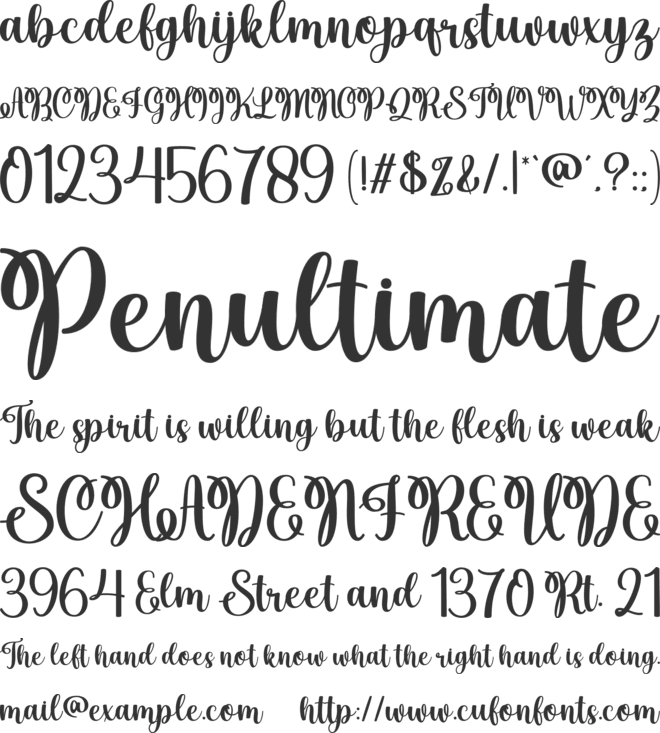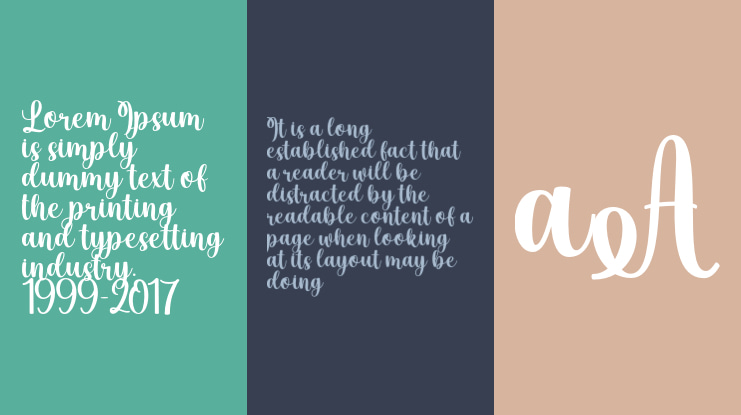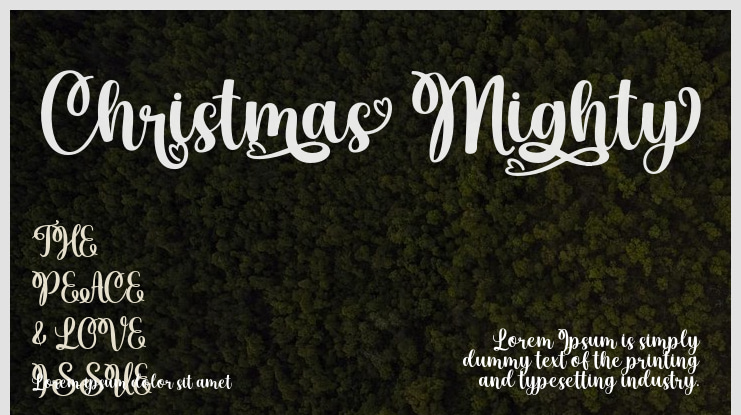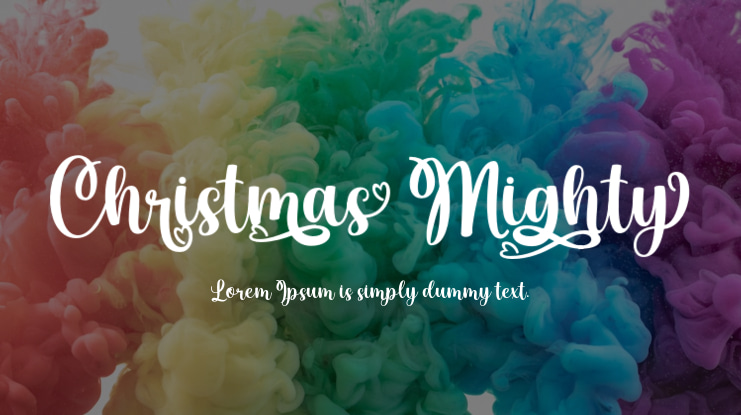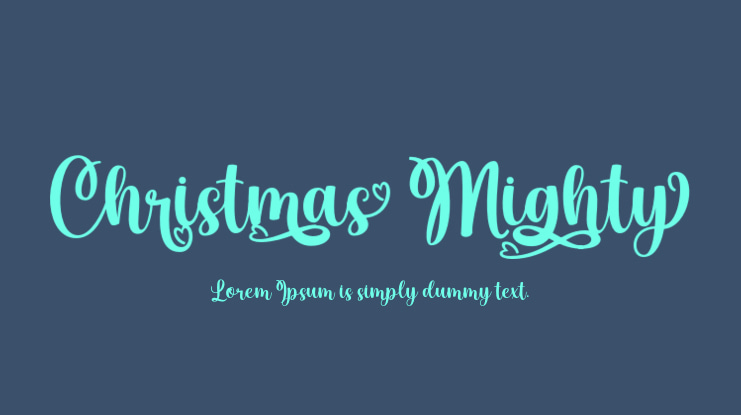
Christmas Mighty Font
Christmas Mighty is a beautiful and romantic handwritten font. It looks amazing on thank you cards, quotes, wedding invitations, greeting cards, business cards, logos and any other design that requires a touch of handwriting.